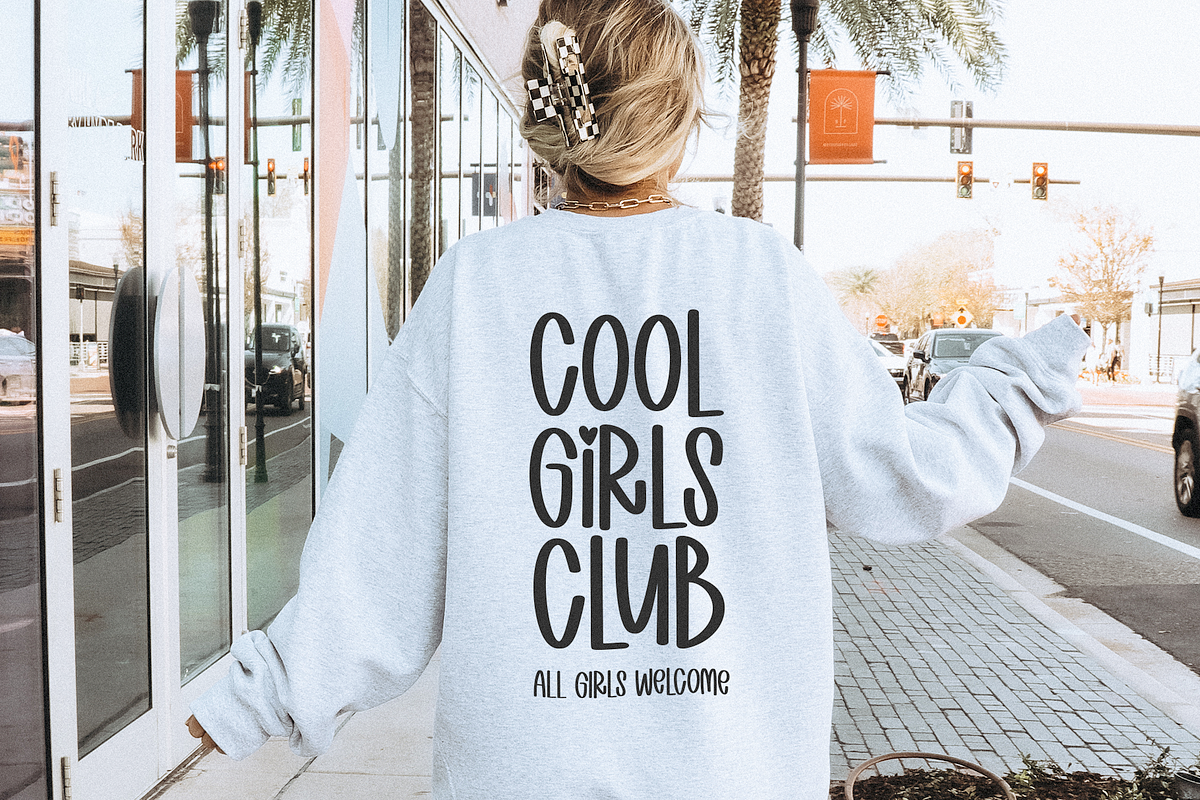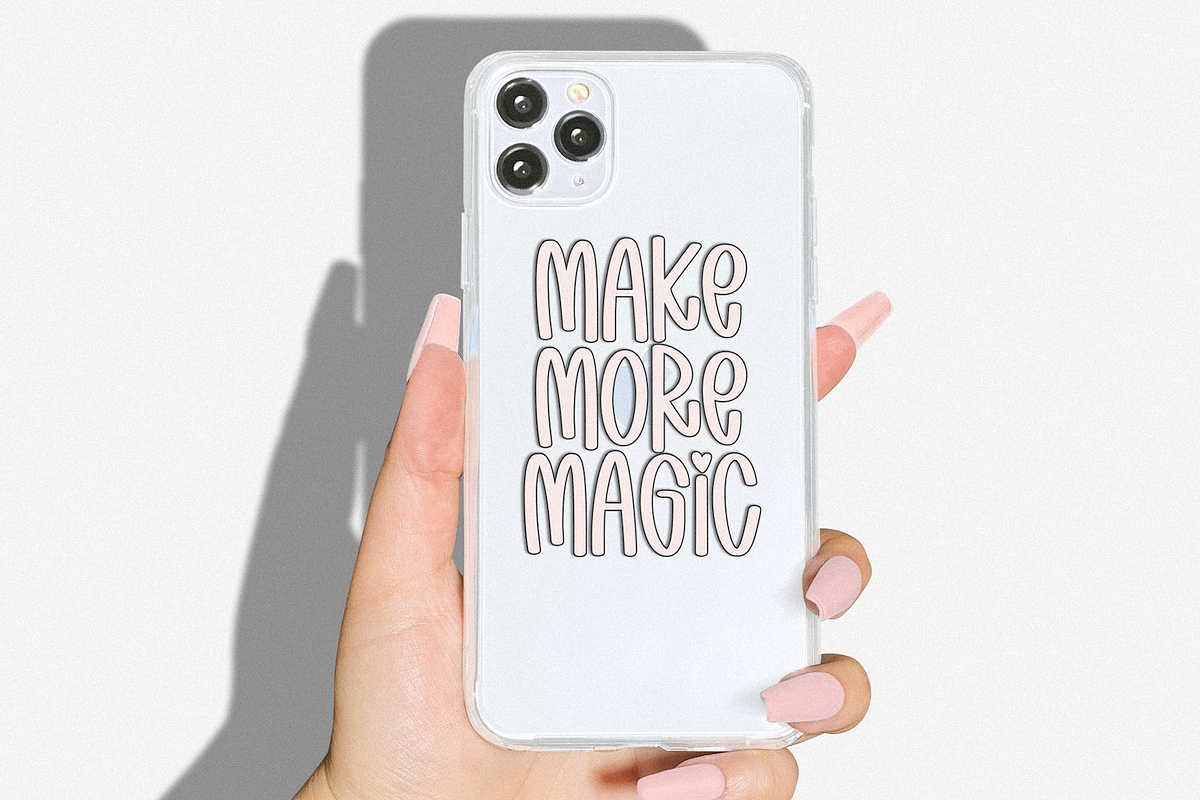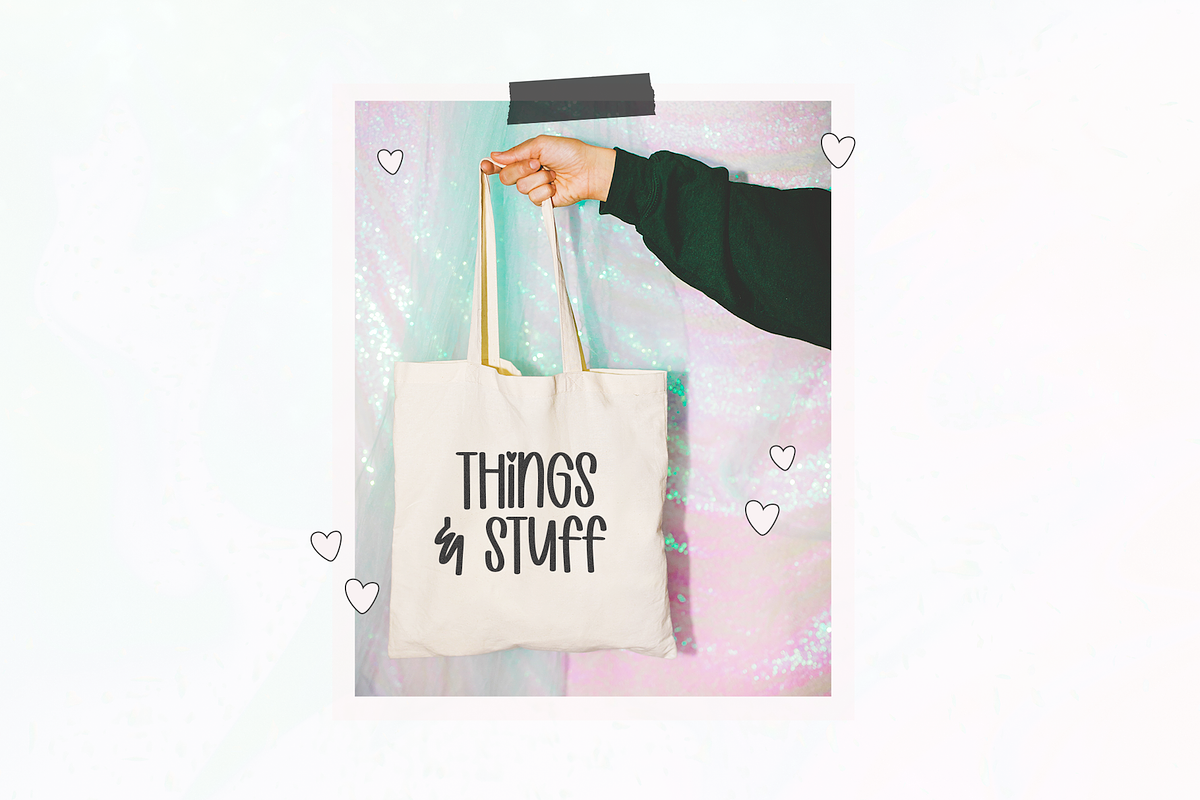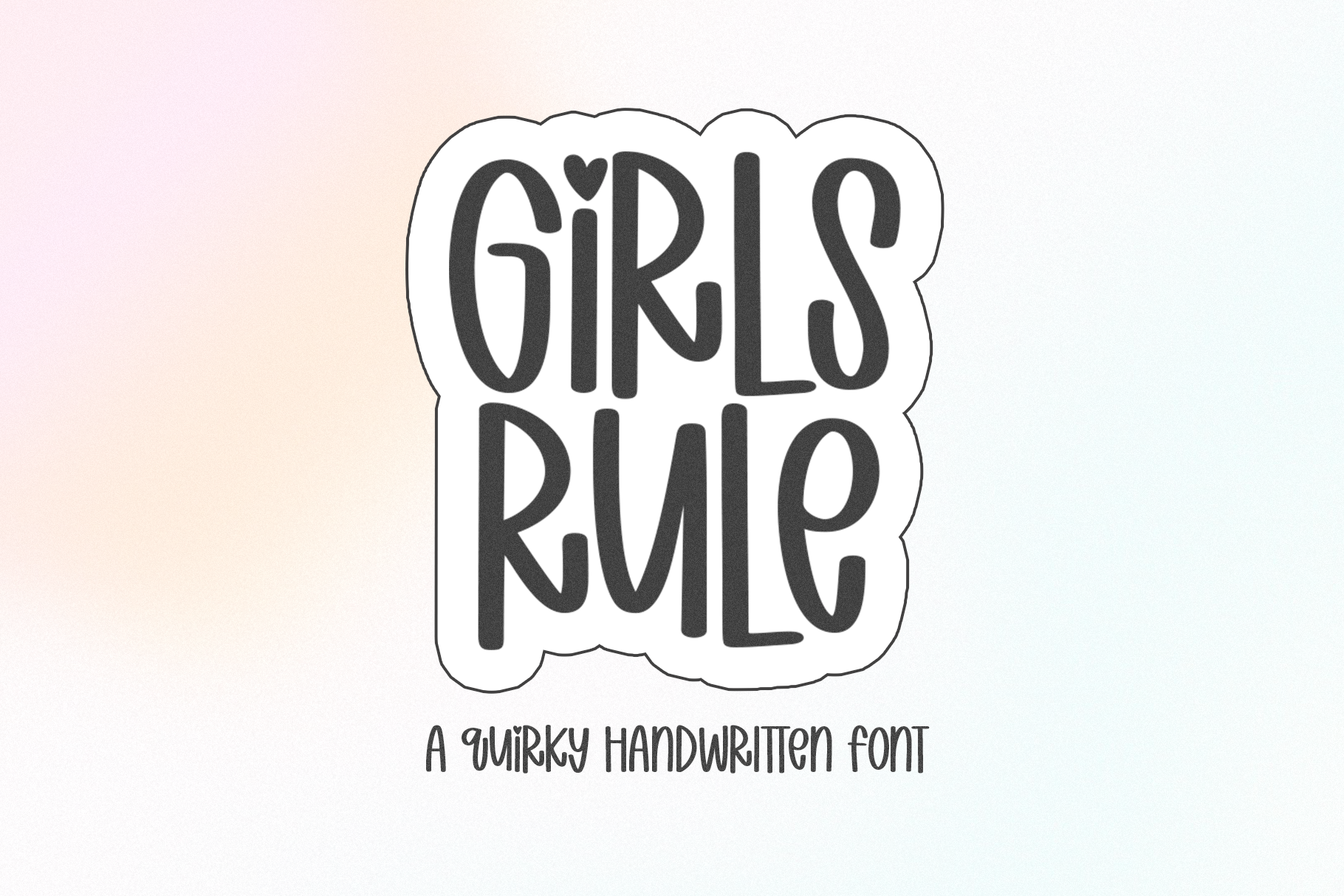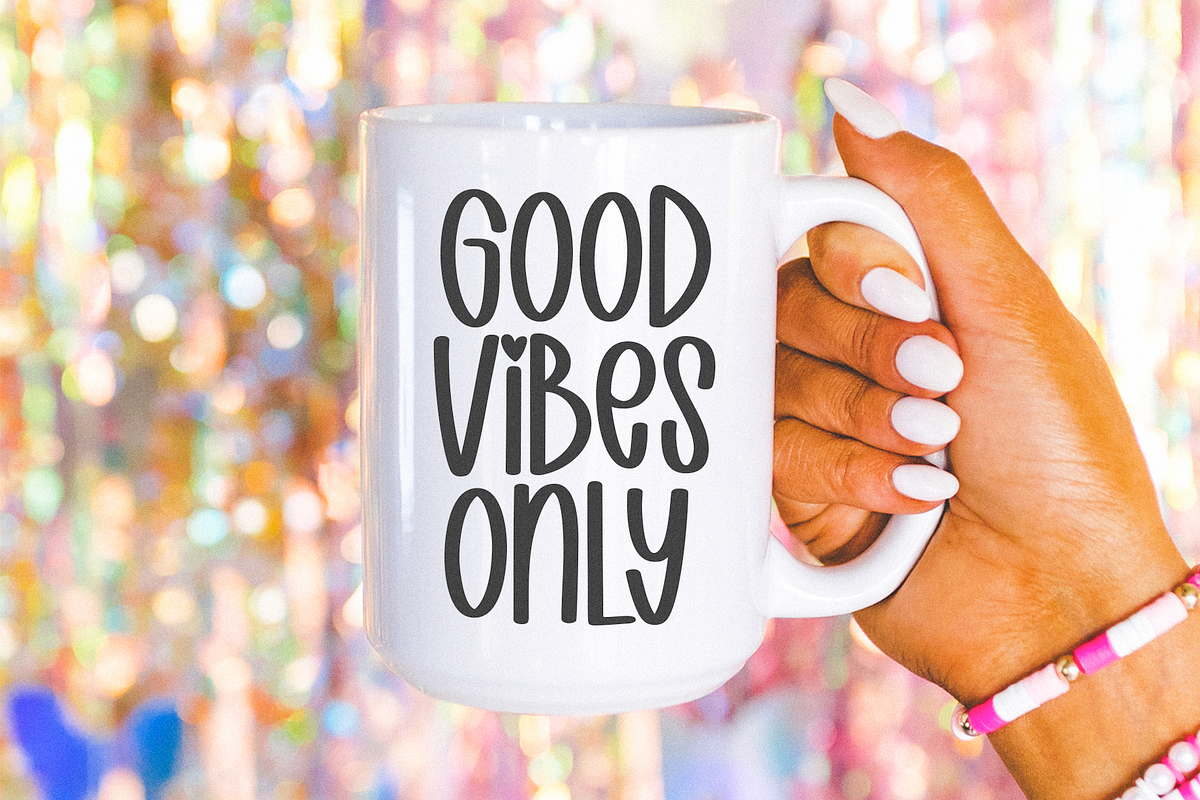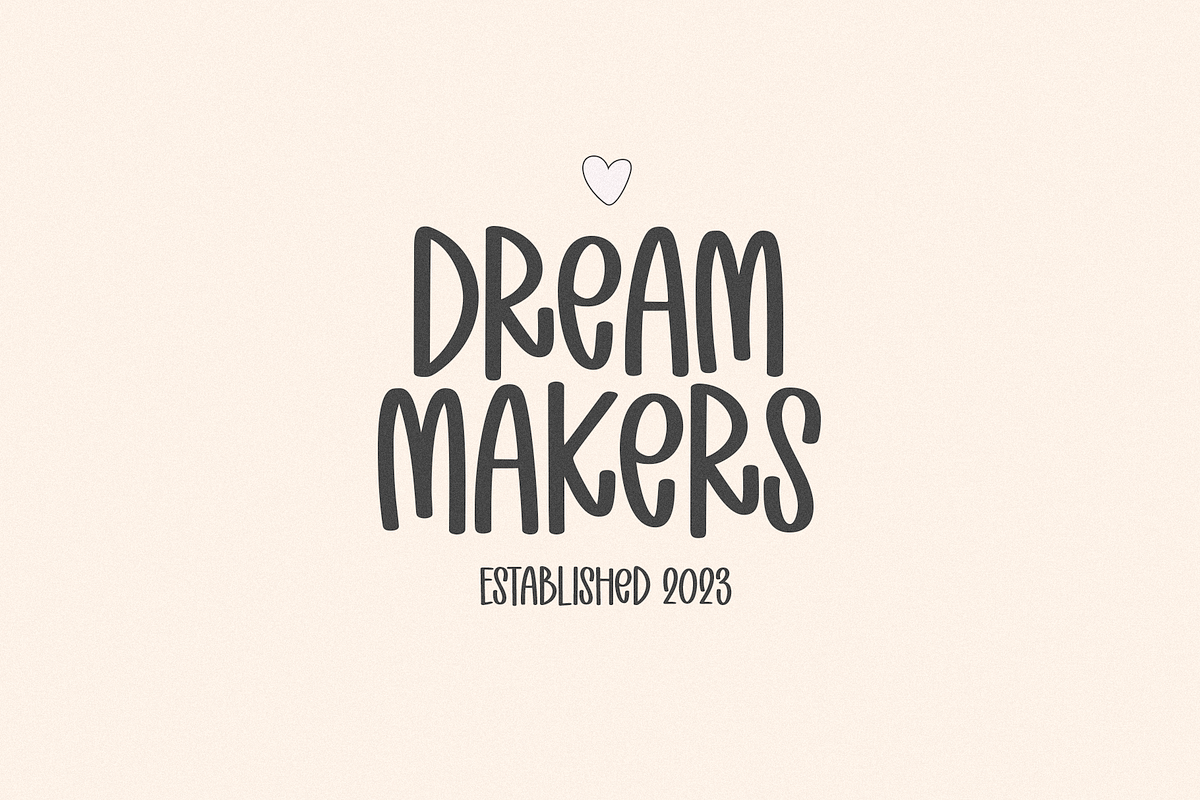
Girls Rule | Cute Handwritten Font
Girls Rule is a fun handwritten font.
This font is perfect for your craft projects, svg files, procreate, teachers, social media quotes, shirts, stickers, and more!
This is a mostly caps font - mixed case with a lowercase e/i
There are two fonts included - Girls Rule and Girls Rule Alt
If you want the heart accent above the i and in the center o - use Girls Rule Alt
If you would like to choose when and where to use the heart accent, use Girls Rule and the | (bar) key to replace your regular "i"